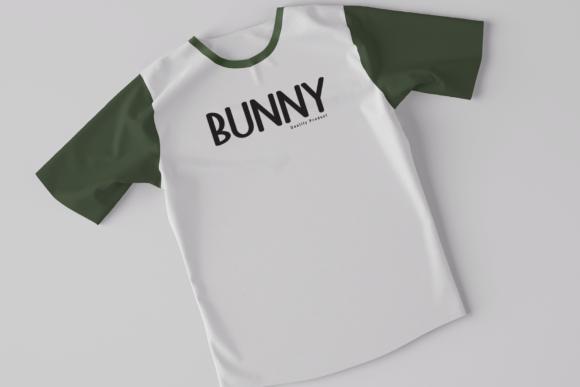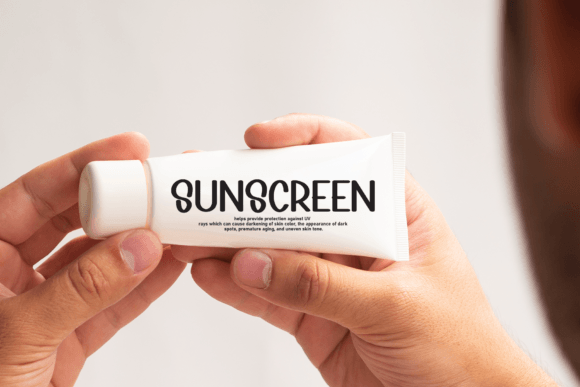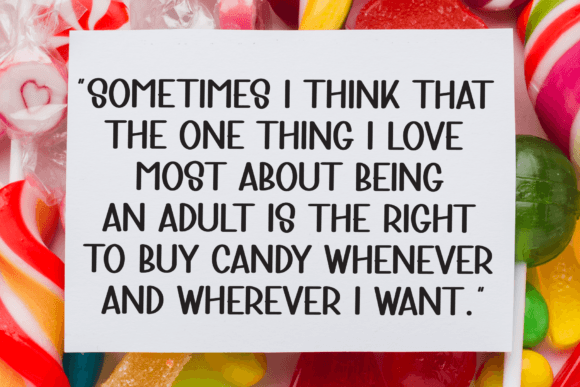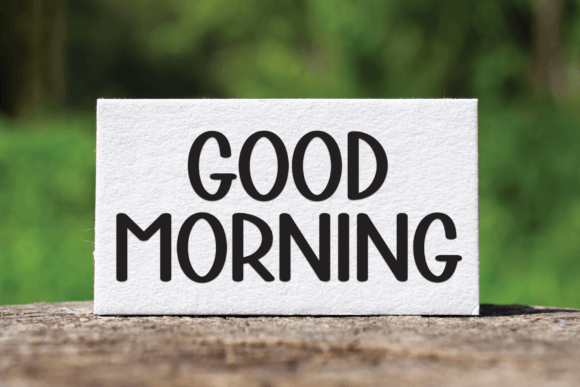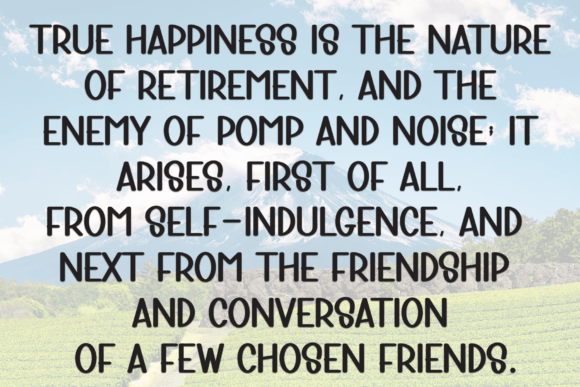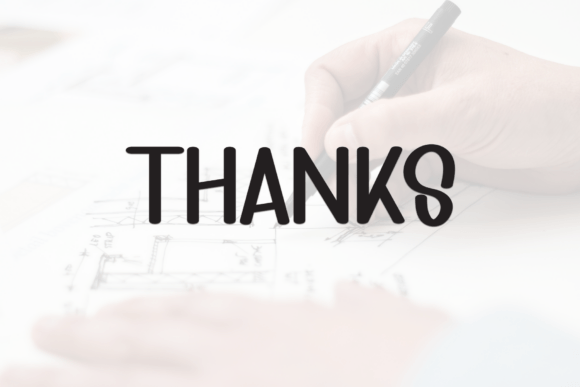
Creative Design Font: Adding a Touch of Whimsy to Your Designs
Are you looking for a font that can add a dash of personality to your designs? Look no further than our creative design font, a charming handwritten display font that exudes warmth and friendliness. With its sweet yet lively character, this font is perfect for creating enchanting wedding invitations, heartfelt greetings, and any design that needs a sprightly splash of fun.
Handwritten fonts have a way of adding a personal touch to any design. They evoke feelings of warmth, comfort, and approachability, making them perfect for designs that need to connect with the audience on a personal level. Our creative design font is no exception. Its handwritten style gives it a unique and endearing quality that is sure to capture the hearts of your audience.
Perfect for Wedding Invitations and Greetings
Wedding invitations and greetings are special occasions that require a font that can convey the emotions and sentiments of the occasion. Our creative design font is perfect for these types of designs. Its sweet and lively character makes it ideal for crafting enchanting wedding invitations that will set the tone for the big day. Similarly, its warm and friendly vibe makes it perfect for creating heartfelt greetings that will make the recipient feel special.
Adding a Sprightly Splash of Fun to Your Designs
Our creative design font is not just limited to wedding invitations and greetings. Its playful and lively character makes it perfect for any design that needs a dash of fun and personality. Whether you’re designing a poster, a brochure, or a social media graphic, this font is sure to add a touch of whimsy and creativity to your design.
Key Features of Our Creative Design Font
• Handwritten style: Our font features a beautiful handwritten style that gives it a unique and endearing quality.
• Sweet and lively character: The font has a sweet and lively character that makes it perfect for designs that need to convey a sense of warmth and friendliness.
• Perfect for wedding invitations and greetings: The font is ideal for crafting enchanting wedding invitations and heartfelt greetings.
• Easy to read: Despite its playful and whimsical nature, the font is easy to read and understand.
• Versatile: The font can be used for a wide range of designs, from posters and brochures to social media graphics and more.
Tips for Using Our Creative Design Font
Here are a few tips for using our creative design font:
• Use it for headlines and titles: The font is perfect for headlines and titles, where its playful and whimsical nature can really shine.
• Pair it with a simple font: For body text, pair the font with a simple and easy-to-read font to create a nice contrast.
• Experiment with colors: The font looks great in a variety of colors, so don’t be afraid to experiment and find the perfect hue for your design.
• Use it sparingly: While the font is perfect for adding a touch of whimsy to your design, use it sparingly to avoid overwhelming the audience.
Our creative design font is a charming handwritten display font that is perfect for adding a touch of personality to your designs. With its sweet and lively character, it’s ideal for crafting enchanting wedding invitations, heartfelt greetings, and any design that needs a sprightly splash of fun. So why not give it a try and see how it can elevate your designs to the next level?